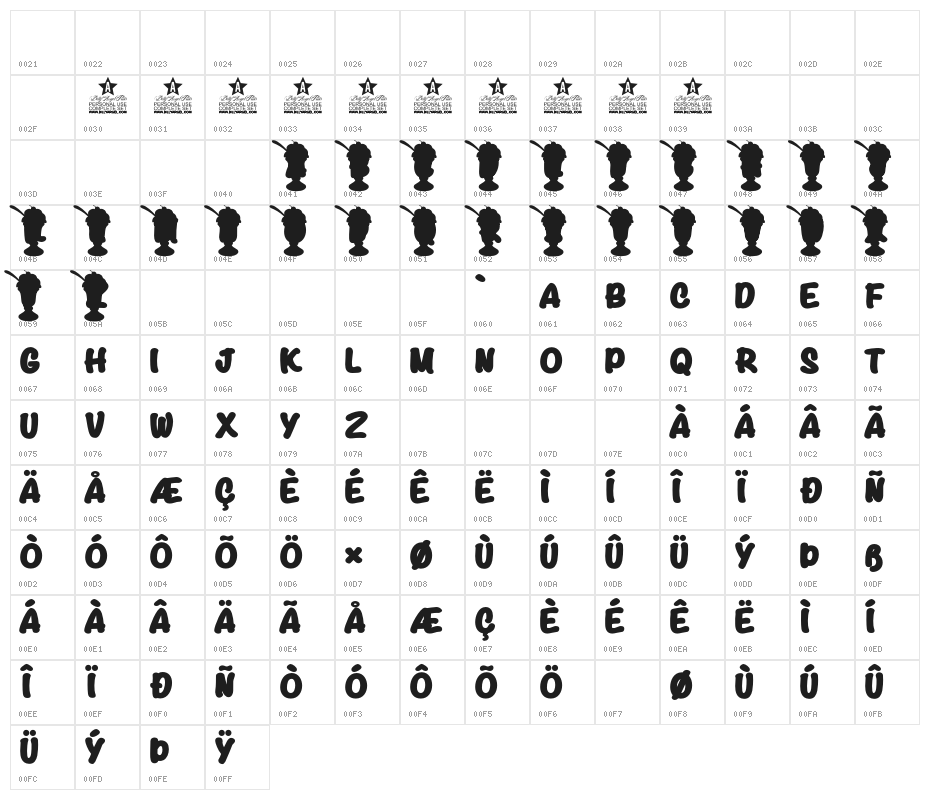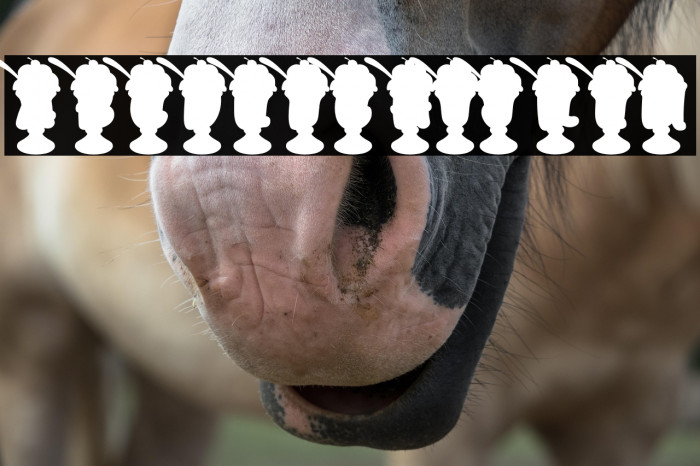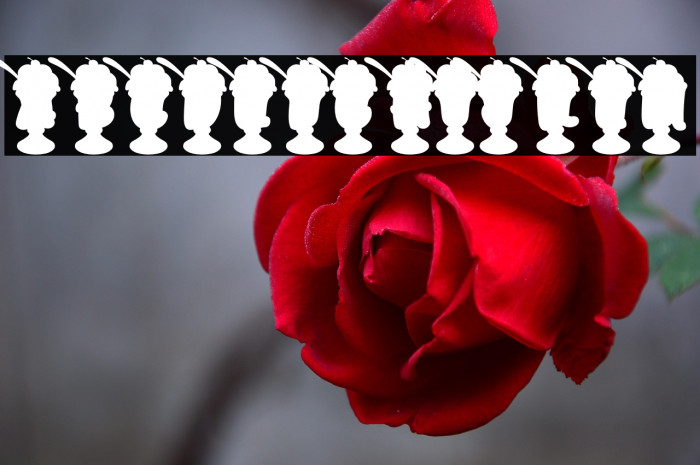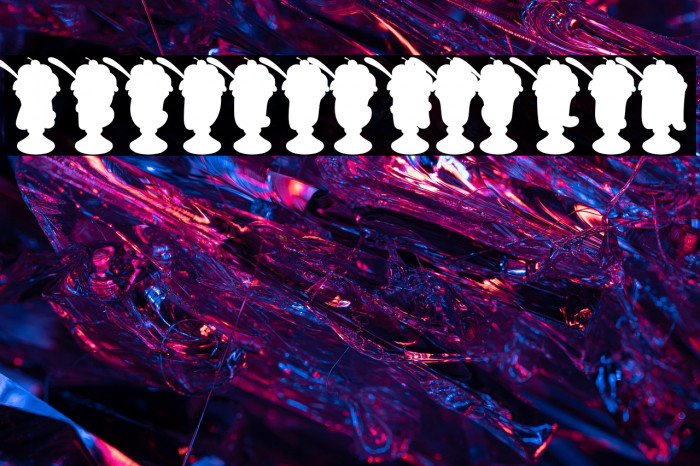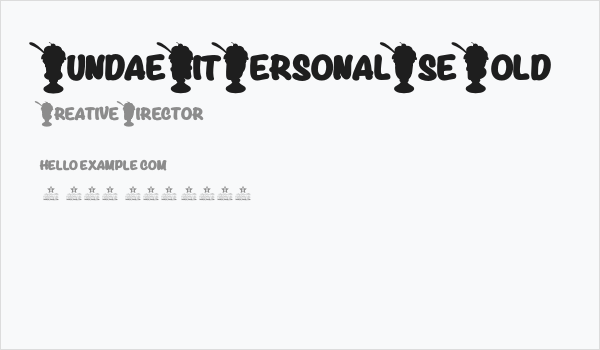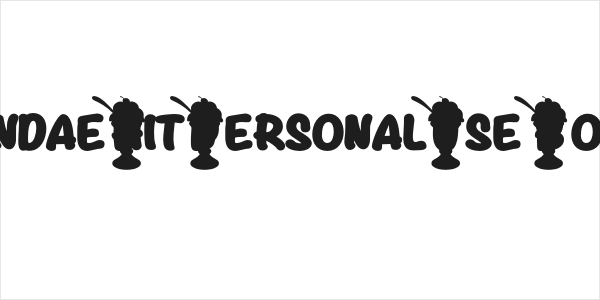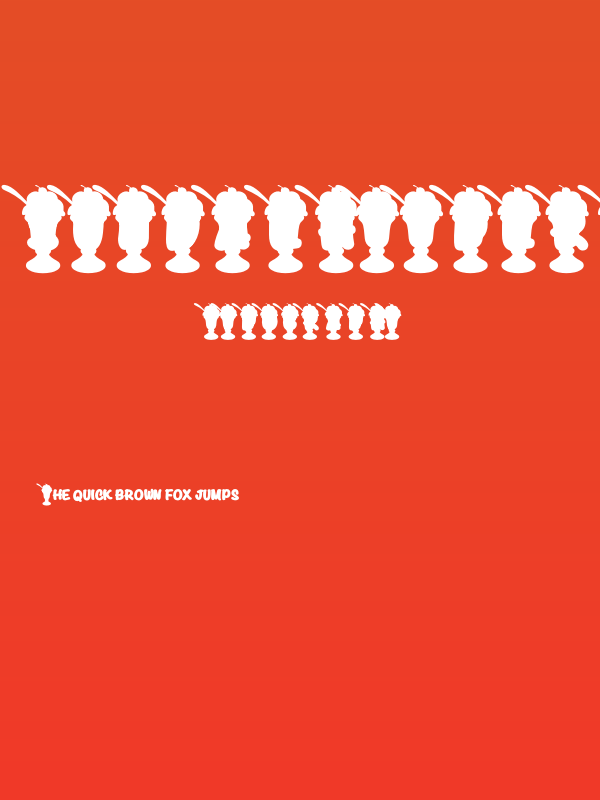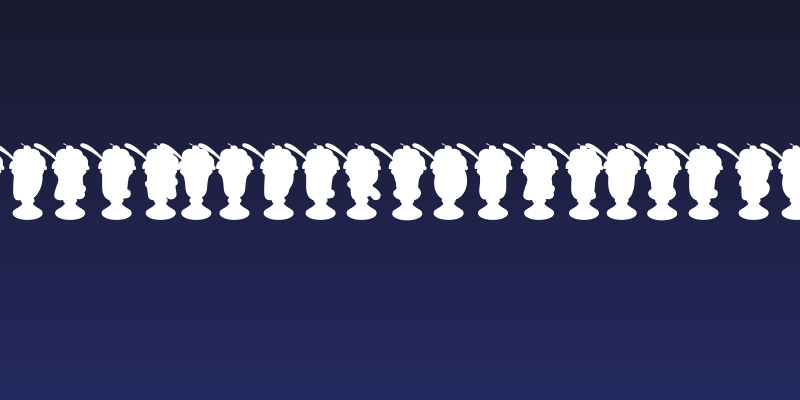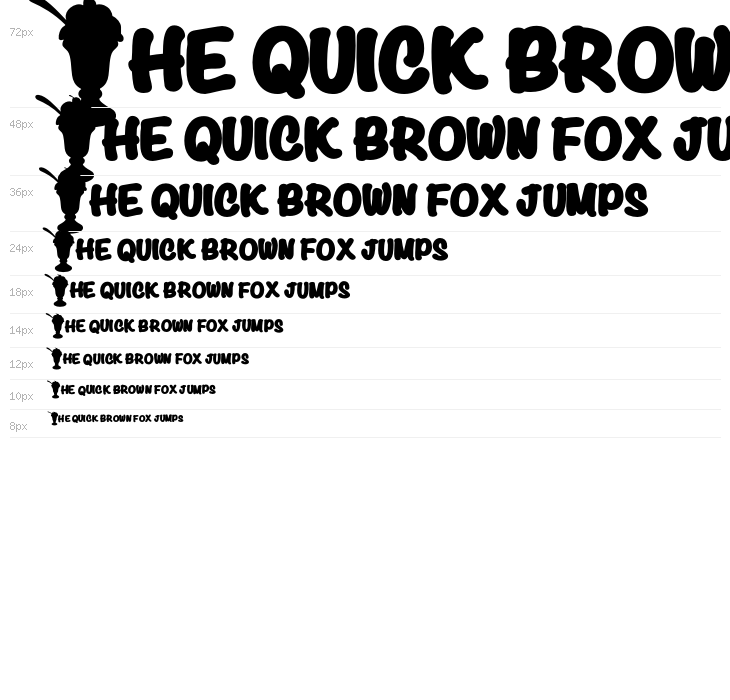
SundaeHitPersonalUse-Bold Font
SundaeHitPersonalUse-Bold Description
This playful and bold font features a whimsical style with thick, rounded strokes that convey a sense of fun and creativity. The uppercase letters are prominent and well-defined, making them ideal for eye-catching designs. The font's playful nature is emphasized by its smooth curves and slightly exaggerated forms, which add a touch of personality and charm. Its boldness ensures high visibility, making it suitable for various creative projects where a lively and engaging appearance is desired.
| Proposed Projects | Ideal for children's book covers, playful branding, party invitations, and creative posters. |